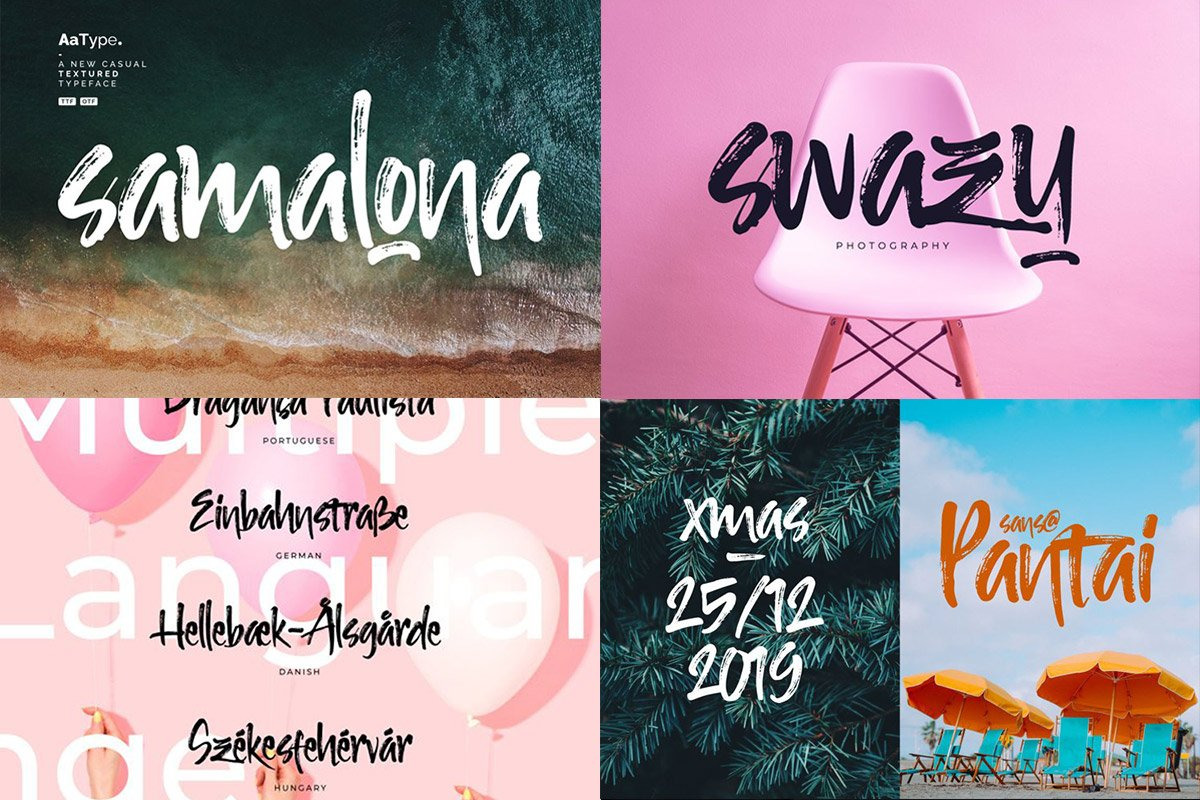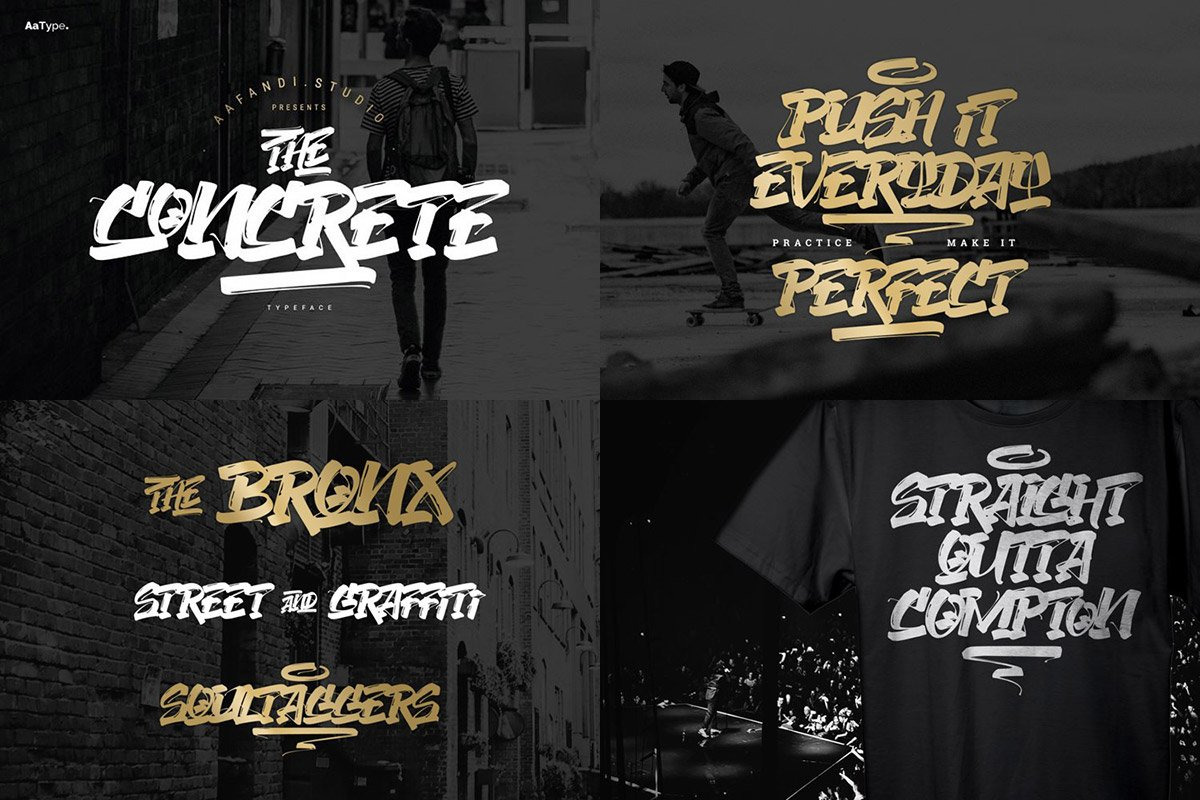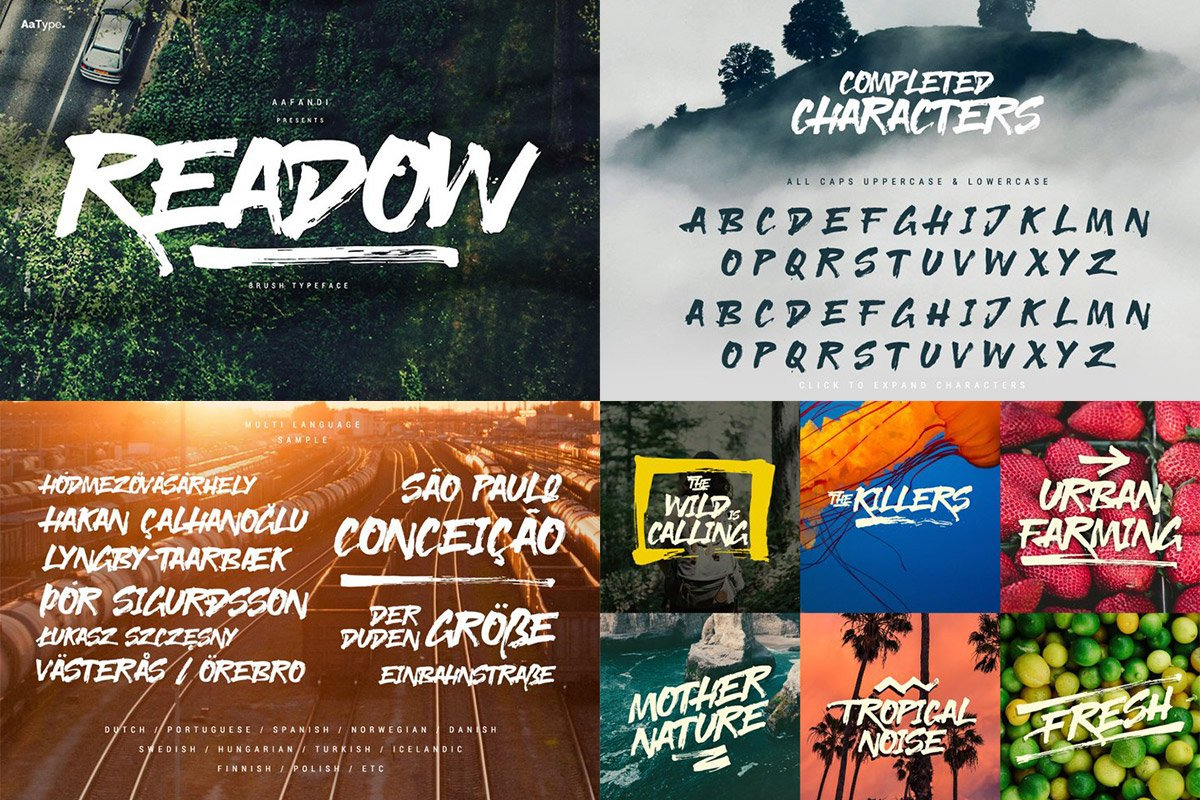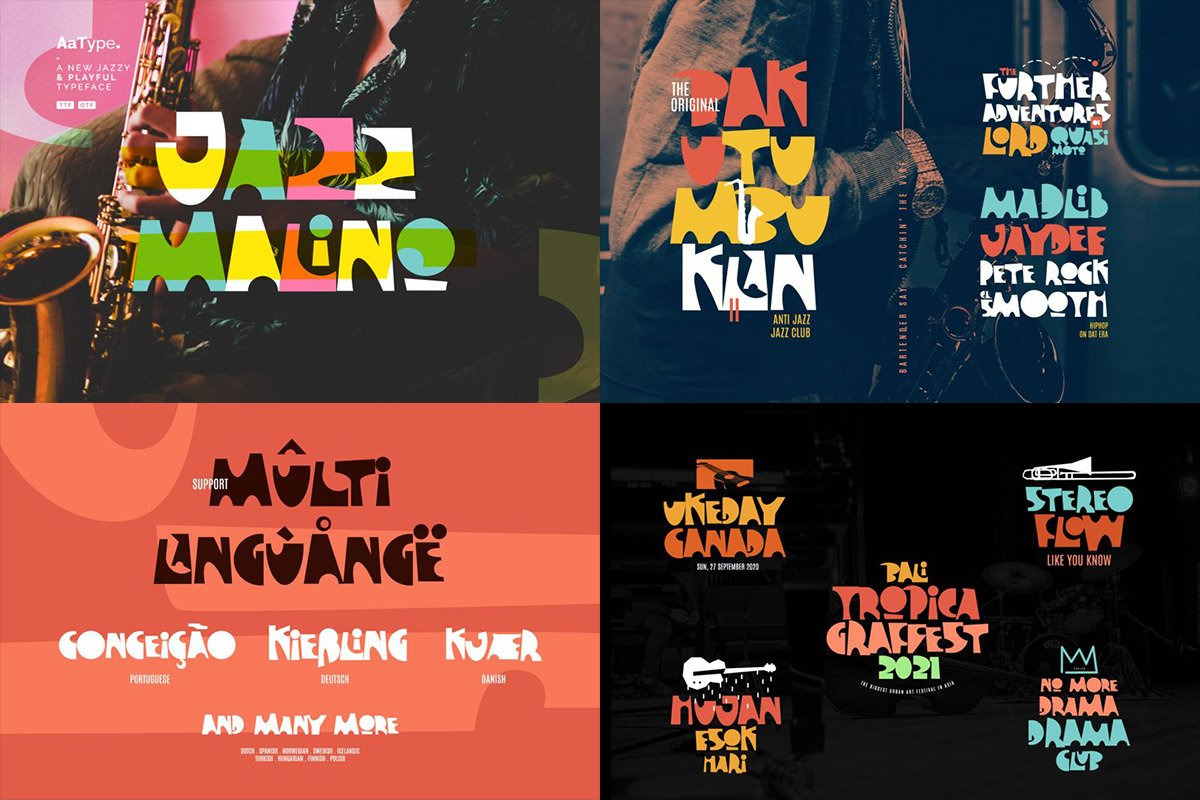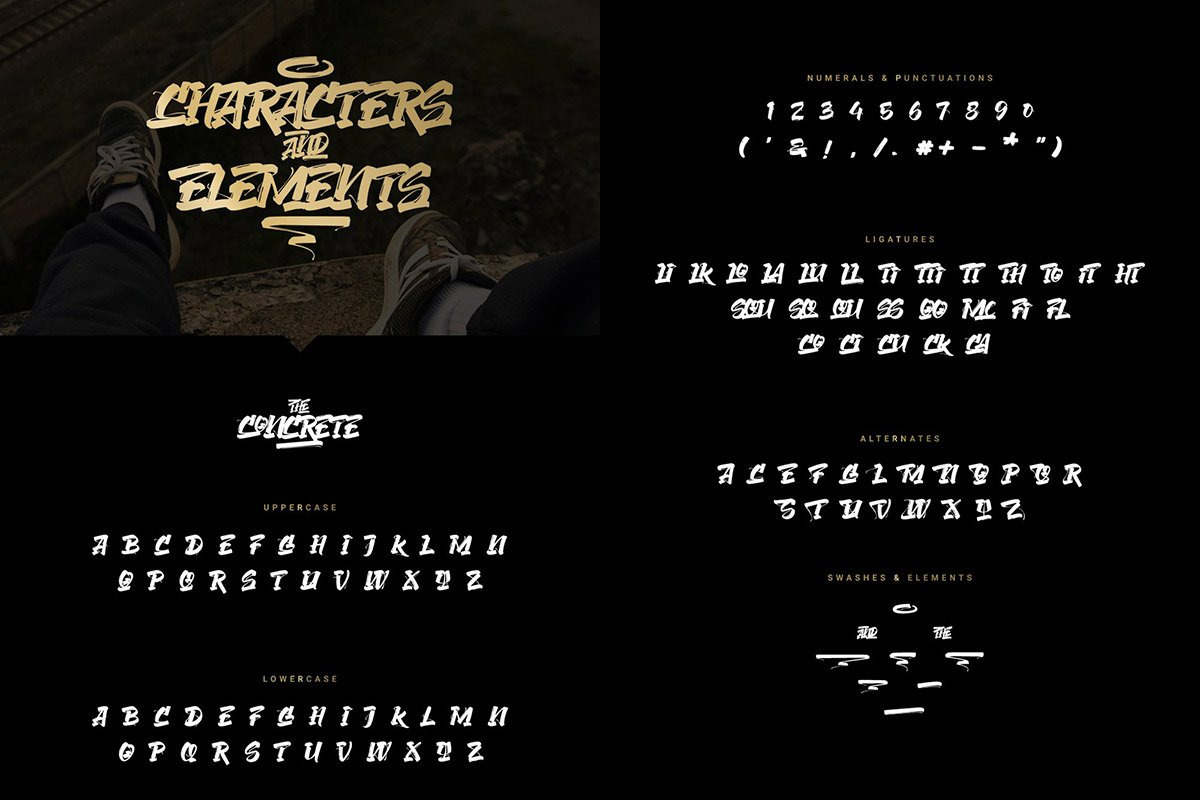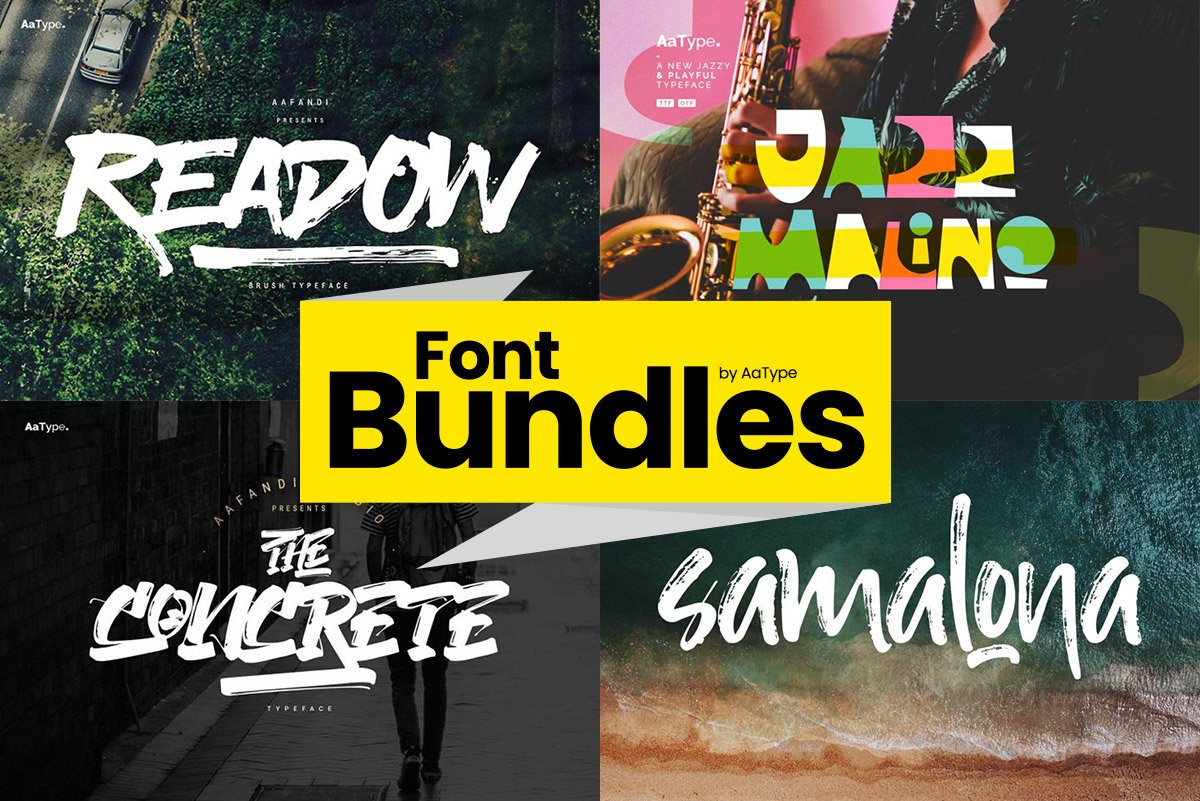
Handwritten Font Bundles 1 by AaType
This bundles contain 4 fonts, a brush font Readow, a playful font Jazz Malino, graffiti themed font called The Concrete, and regular brush font called Samalona. Total Price $59, now you can get only $20.
Readow features comes with All Caps Uppercase & Lowercase, Numeral, Punctuation, Stylistic/Alternate Characters, and also Support Multi Language. Readow comes with free vector brush in AI format
Jazz Malino comes with all Uppercase type, Numeral, Punctuation, Ligatures, and also Support Multiple Language, German, Portuguese, Danish, etc. Jazz Malino comes with Free Vector File in AI format.
The Concrete Opentype features including more than 130 glyphs : All Caps Uppercase & Lowercase, Numerals, Punctuation, Ligatures, Alternates Stylistic, Swash & Elements.
Samalona comes with Uppercase & Lowercase, Numeral, Punctuation, Ligatures, and also Support Multiple Language, German, Portuguese, Hungary, & Danish.